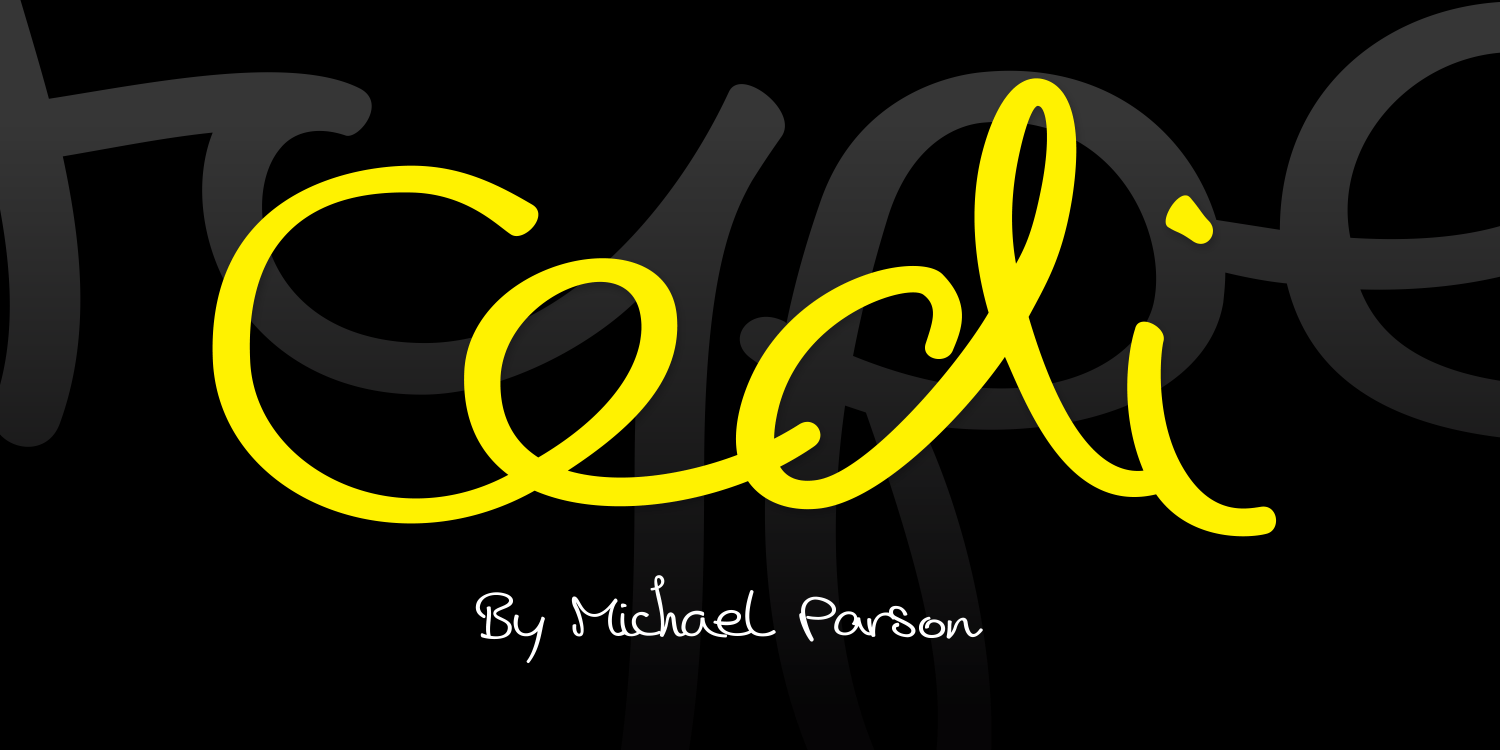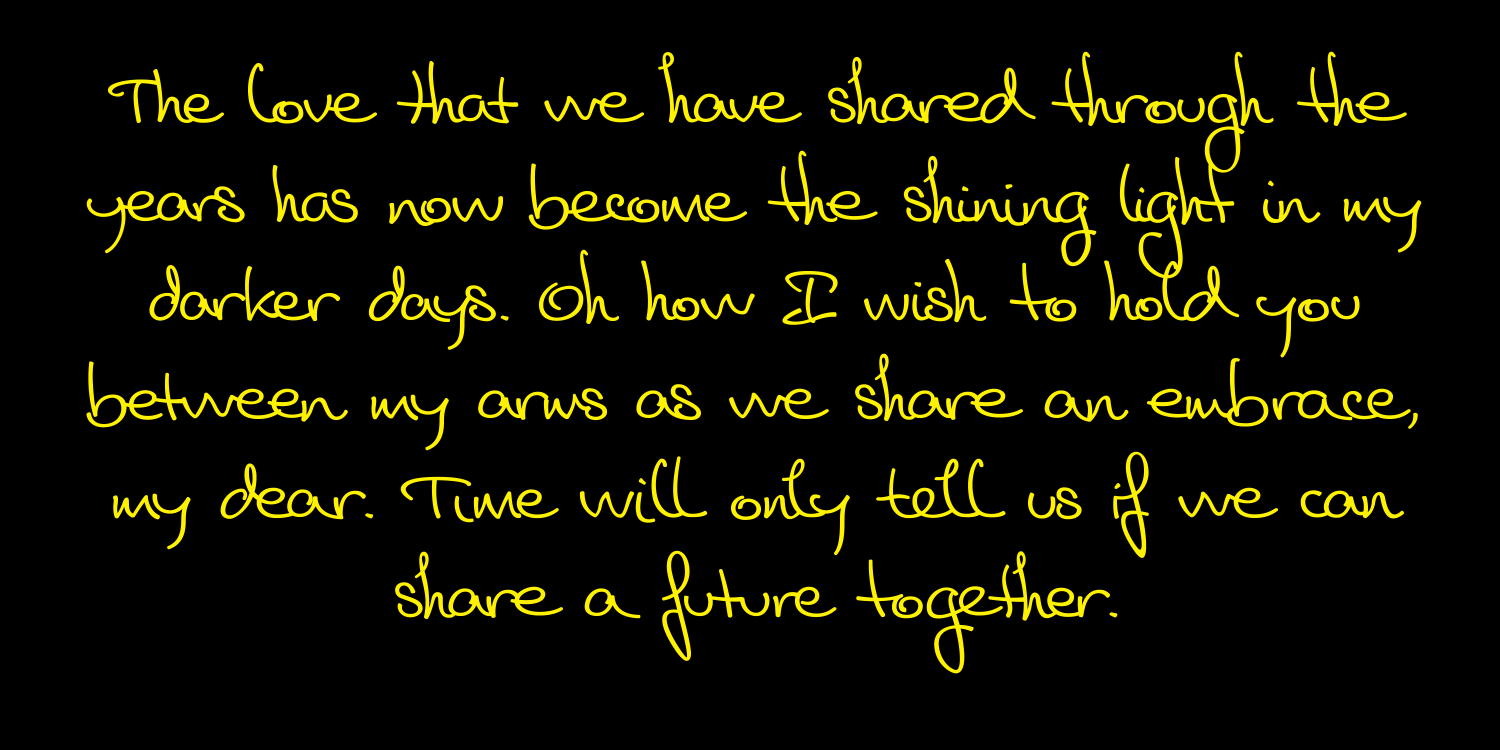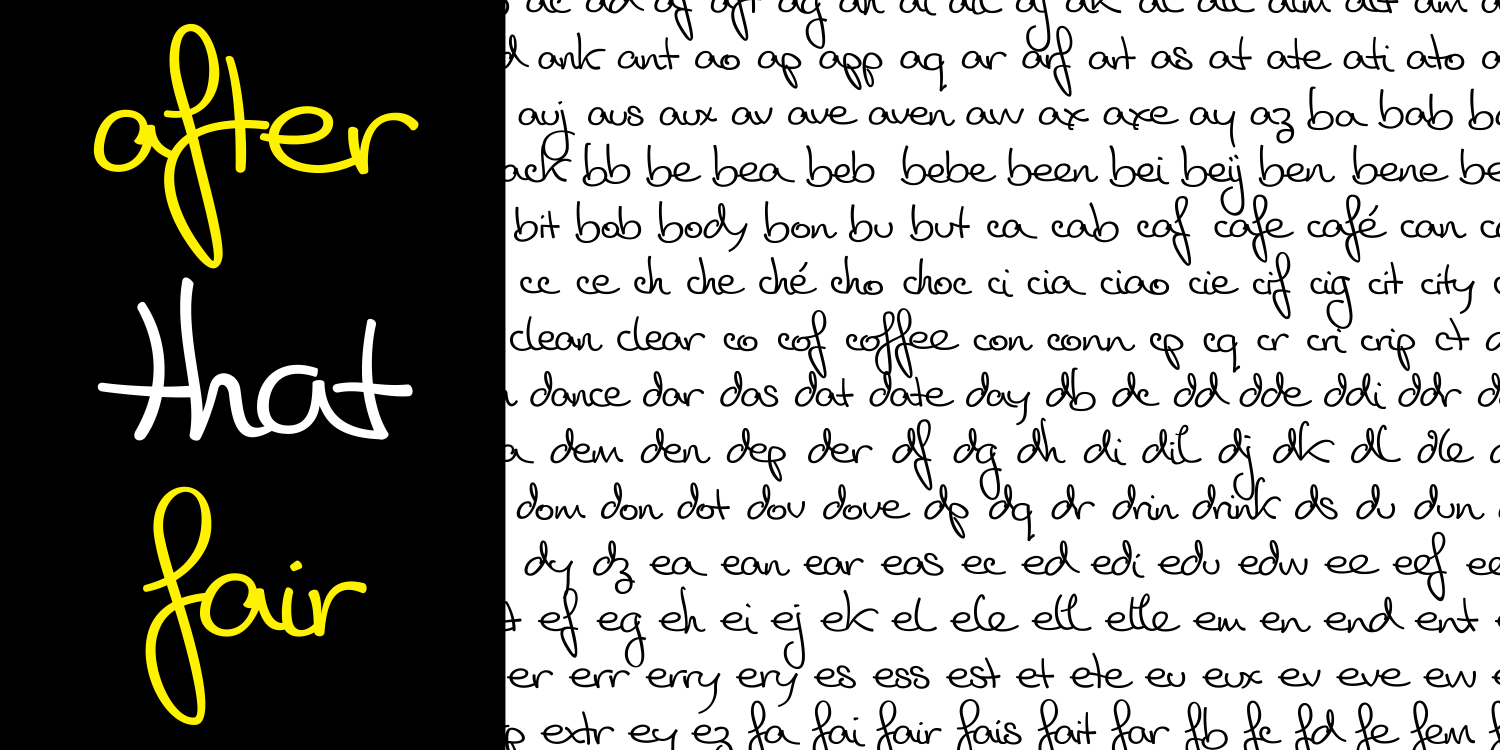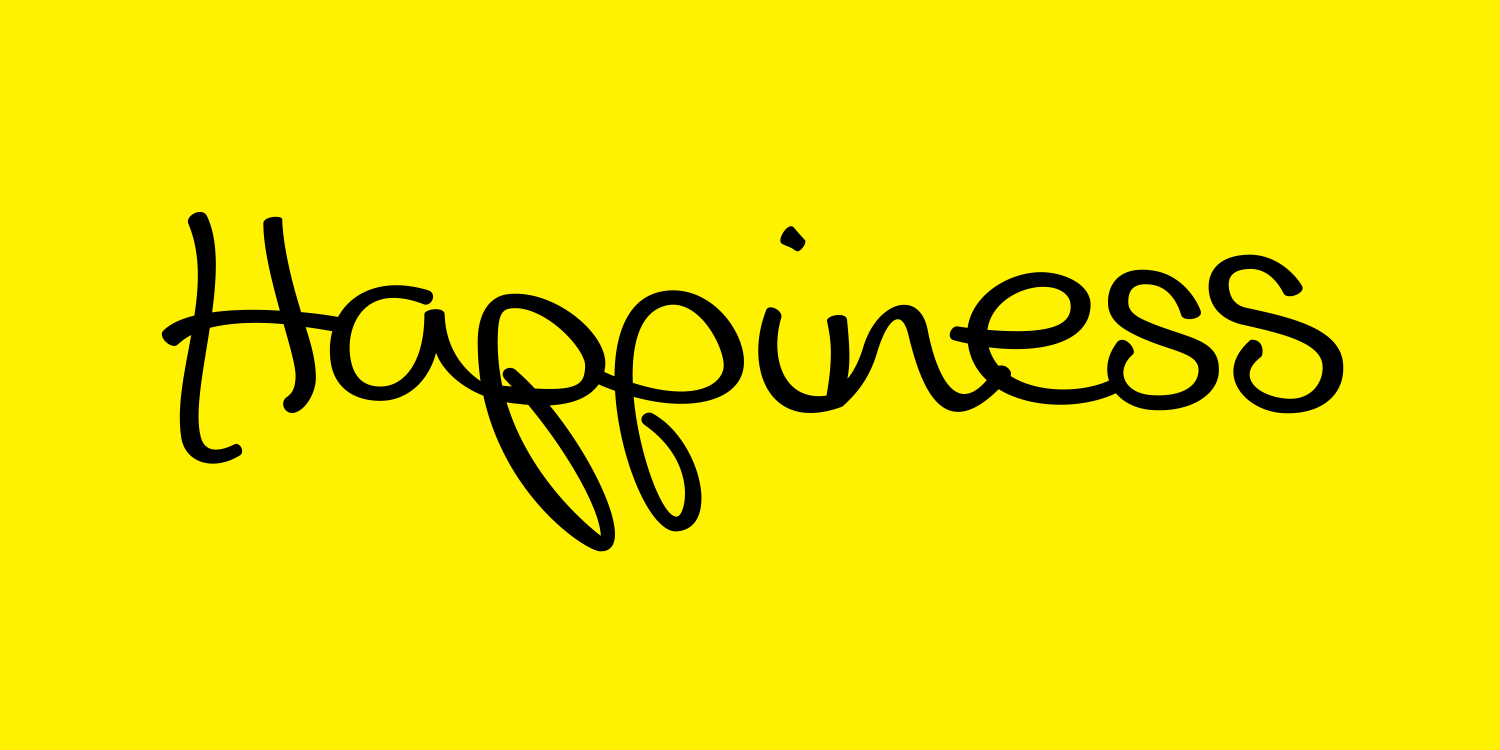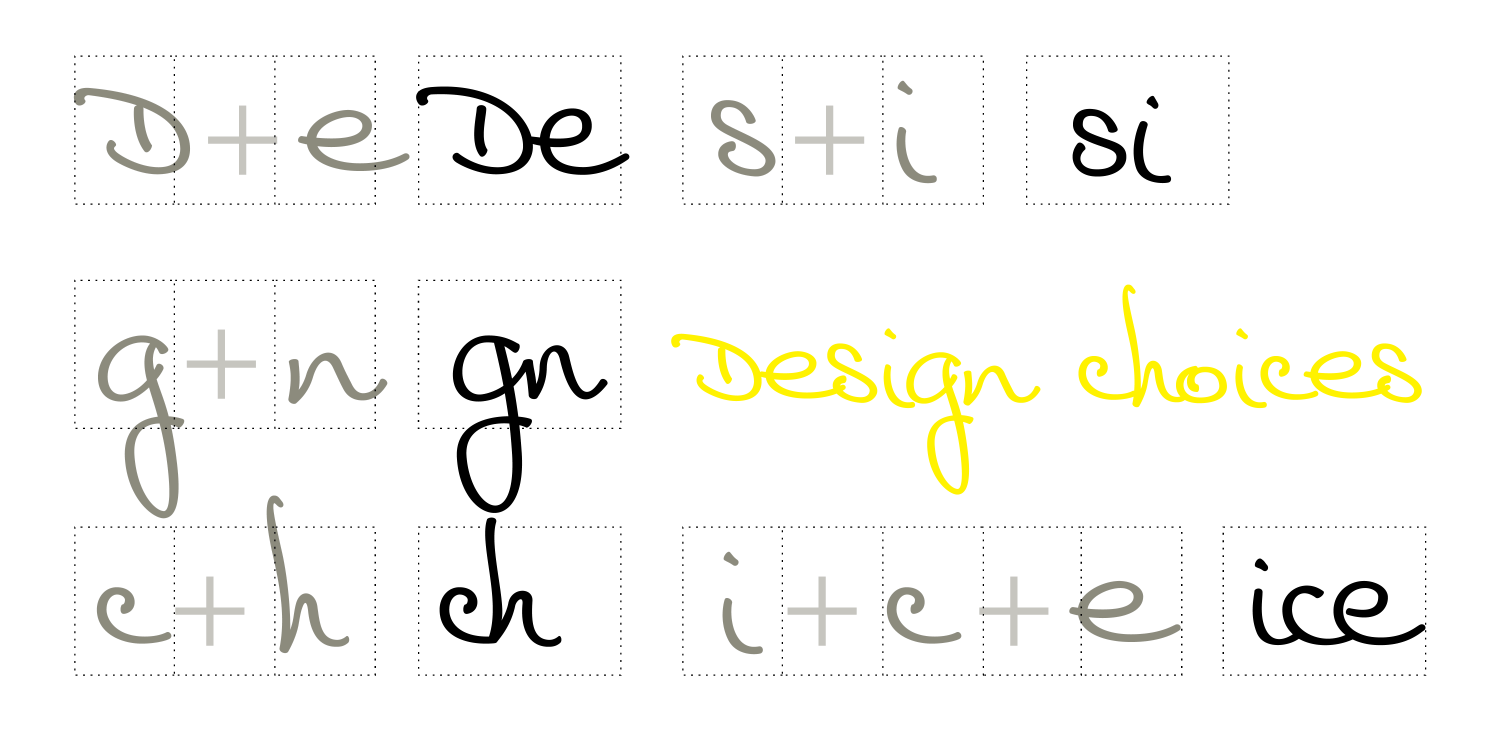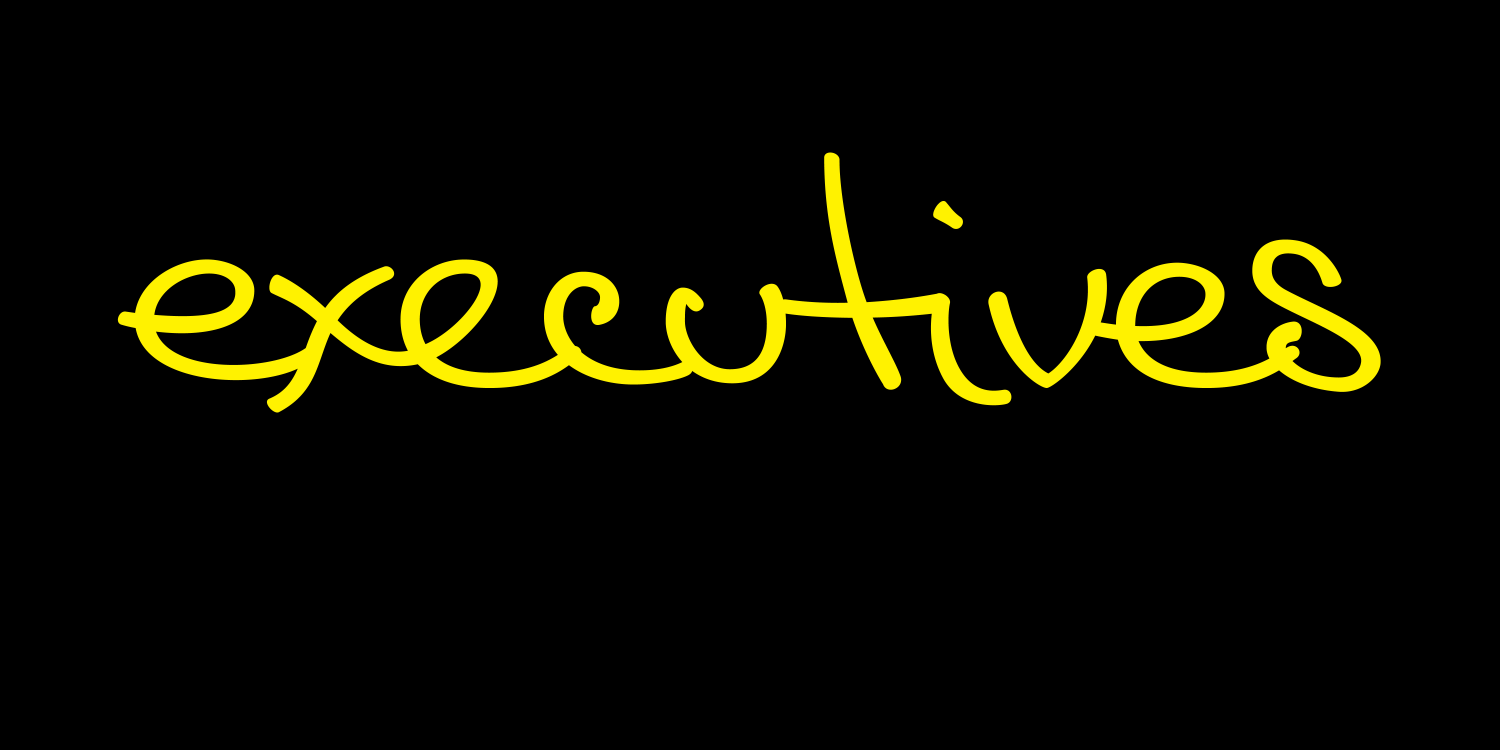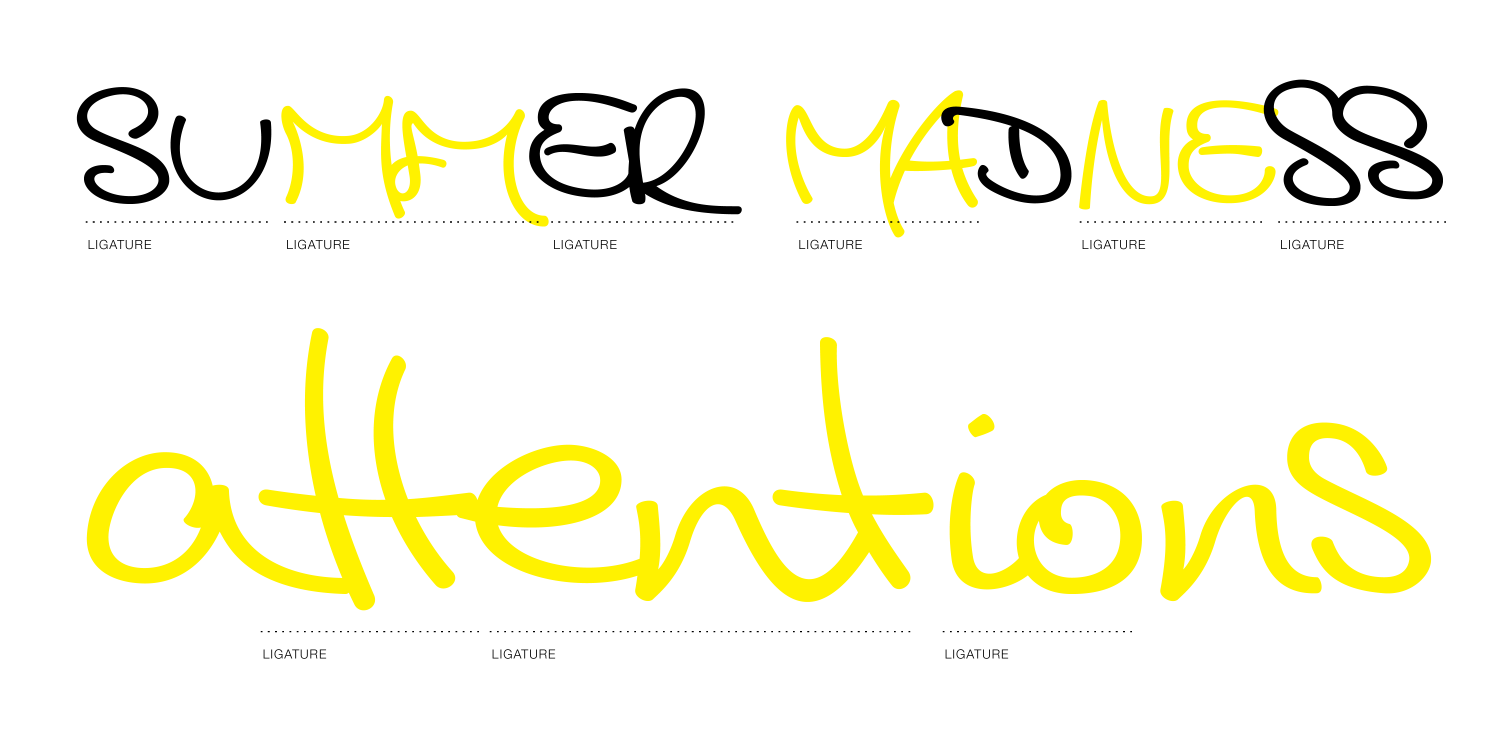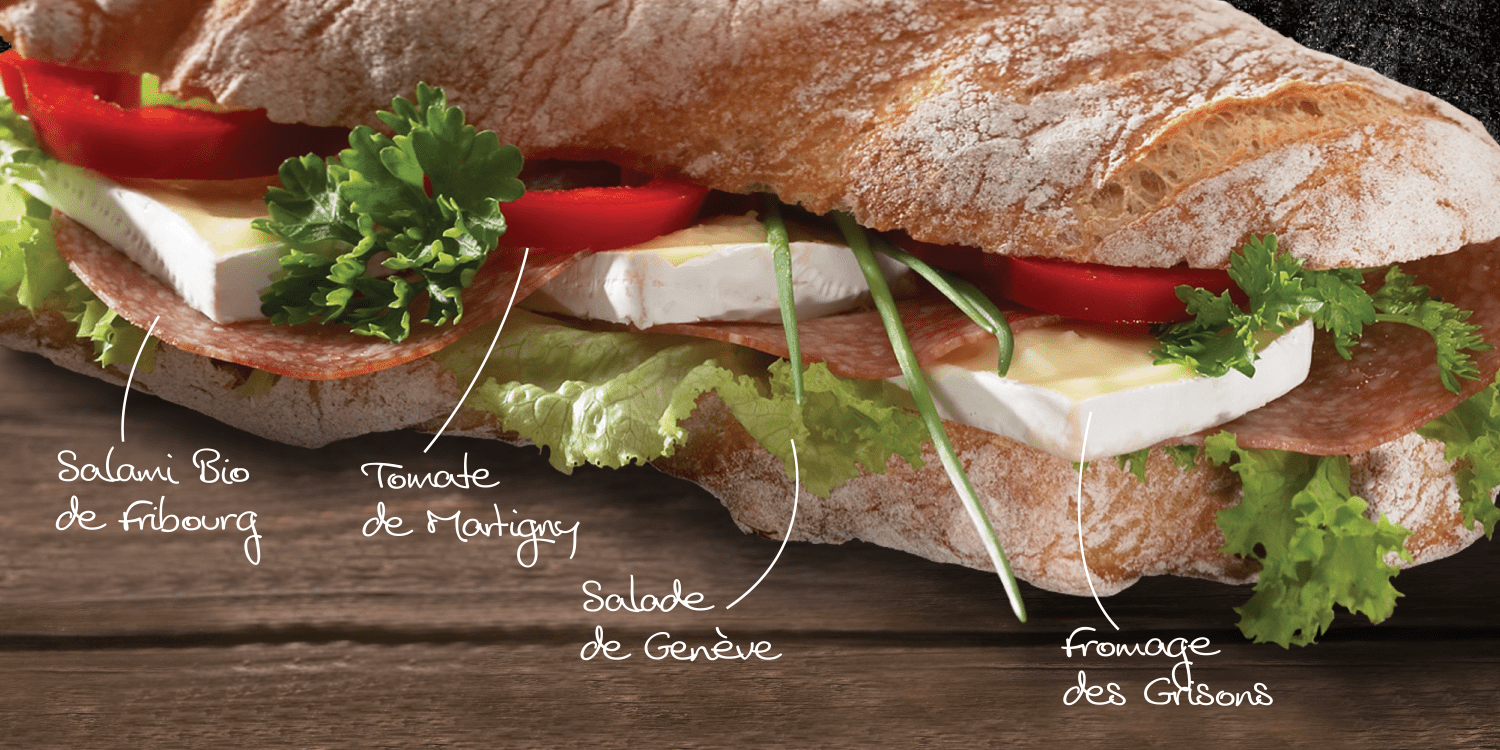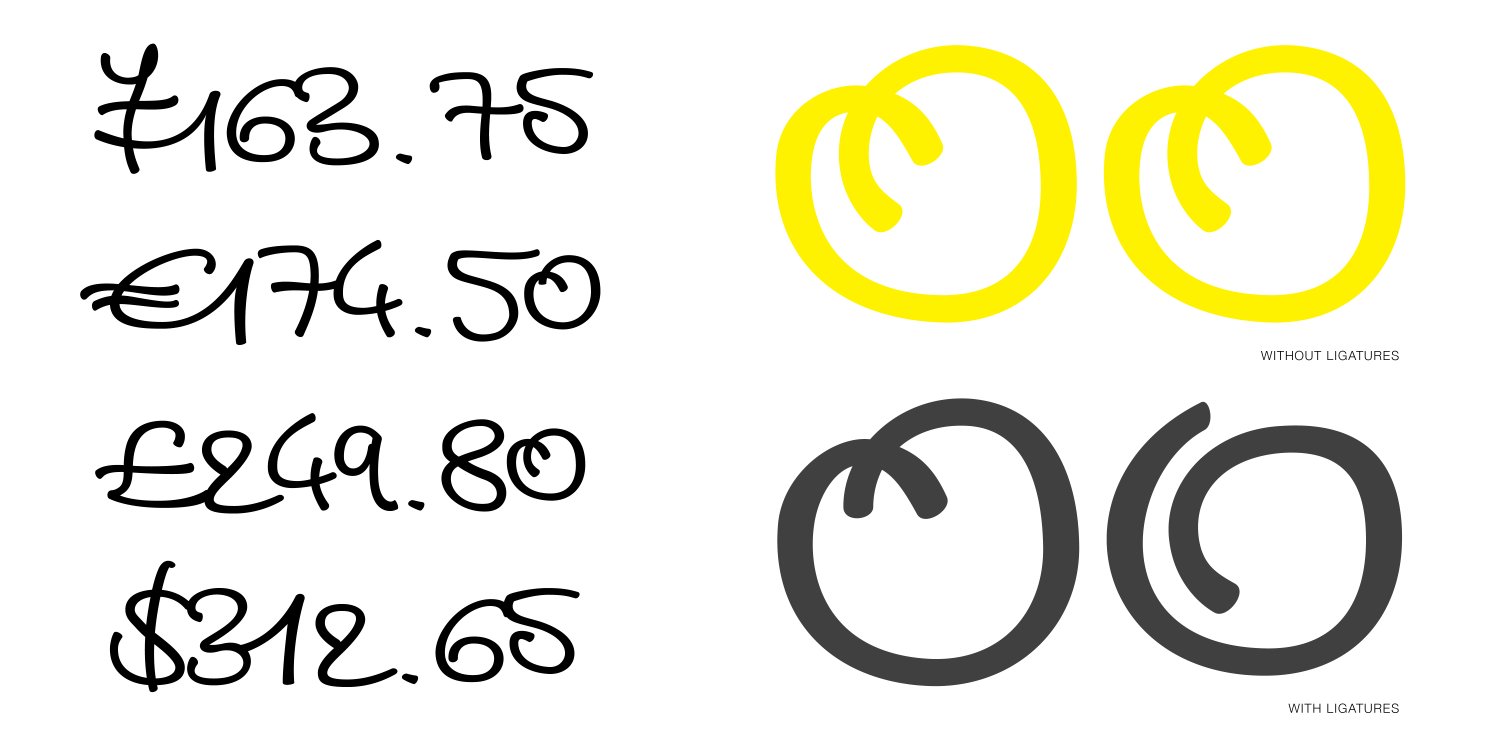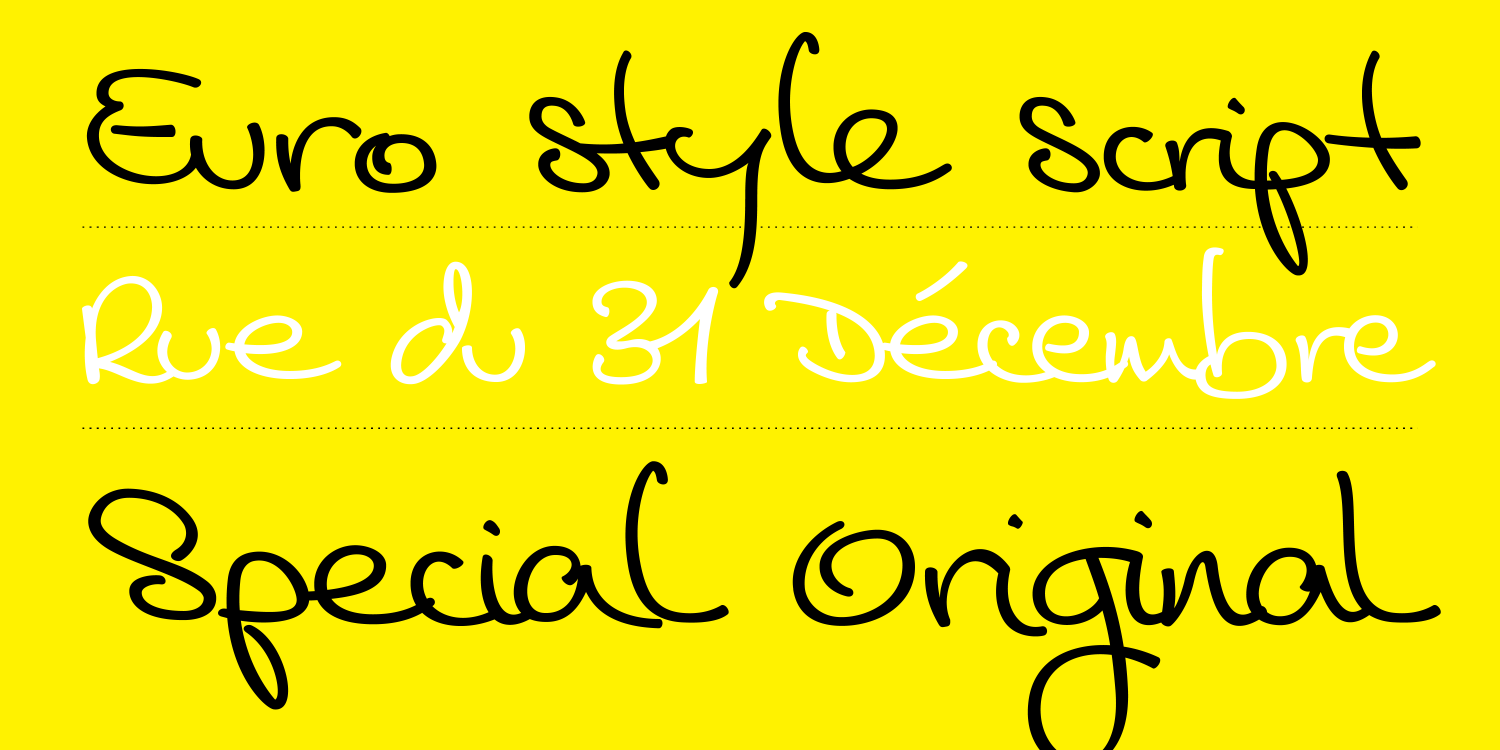
Cedi
Font Family by Typogama
The Cedi Typeface is a single weight display font that is based on the fluid handwritten style of a work colleague, Cedric Roger. This design is a fast flowing script that is both lively and original yet equally legible due to it's defined letterforms and open forms. Despite working well in a regular format, during the design process I started to look at ligatures as a solution for solving some problematic combinations. However, this small implementation soon got vastly expanded as I started to focus on the rhythm of the letterforms and how best to convey the hand drawn feature in the design. A common problem in most script fonts is the repeating letterforms that would be particularly un-natural for this manual typeface, therefore hinting at it's digital source. The ligature concept soon evolved into over 2400 ligatures, trying to cover all repeating glyphs as well as finding more harmonious combinations. This design was created for use in small text settings and use at large point sizes suiting titles, screen use or logo designs.